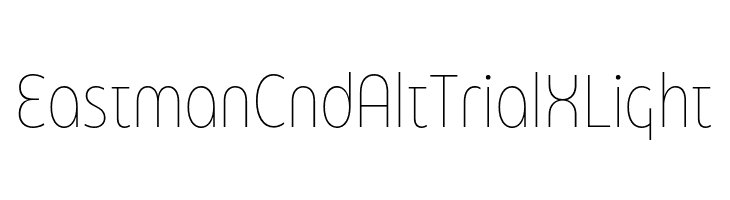
• Eastman Cnd Alt Trial Medium
A modern, geometric sans-serif font with a clean and compact design.
• Eastman Cnd Alt Trial Medium Ita
A modern, italicized font with medium contrast and a slightly condensed style.
• Eastman Cnd Alt Trial Offset
A modern, condensed sans-serif font with uniform stroke width and geometric shapes.
• Eastman Cnd Alt Trial Offset Ita
A modern, condensed, and slightly italicized font with smooth curves.
• Eastman Cnd Alt Trial Regular
A modern geometric sans-serif font with a clean and balanced design.
• Eastman Cnd Alt Trial Thin
A modern, thin, and geometric font with elegant and minimalistic design.
• Eastman Cnd Alt Trial Thin Ita
A sleek, modern, and italicized font with thin strokes and a condensed style.
• Eastman Cnd Alt Trial XBold
A bold, geometric, and condensed typeface with high contrast and modern appeal.
• Eastman Cnd Alt Trial XBold Ita
A bold, condensed, and italic font with high contrast, perfect for dynamic headlines.
• Eastman Cnd Alt Trial XLight
A sleek, modern typeface with thin, uniform strokes and a condensed structure.